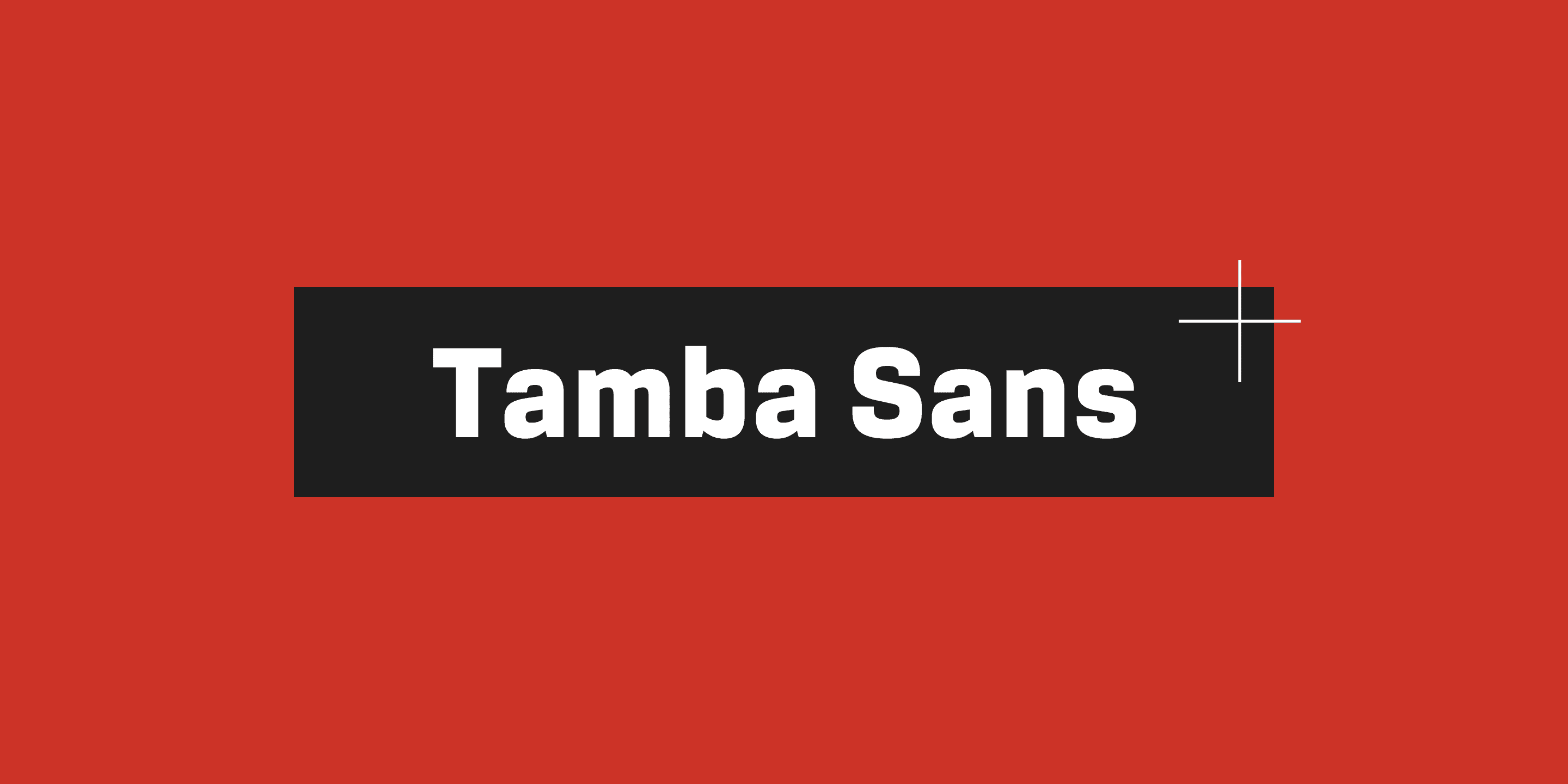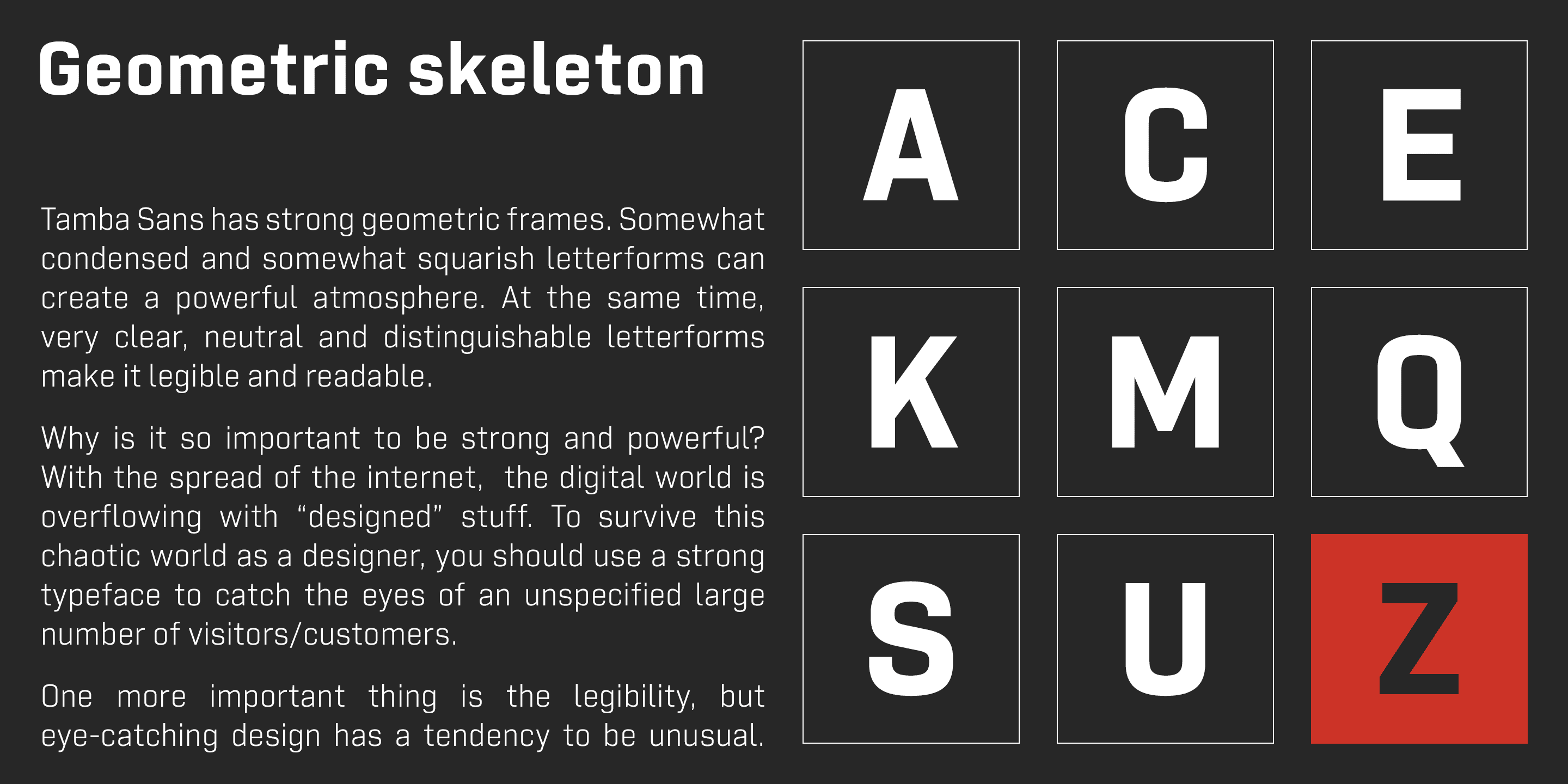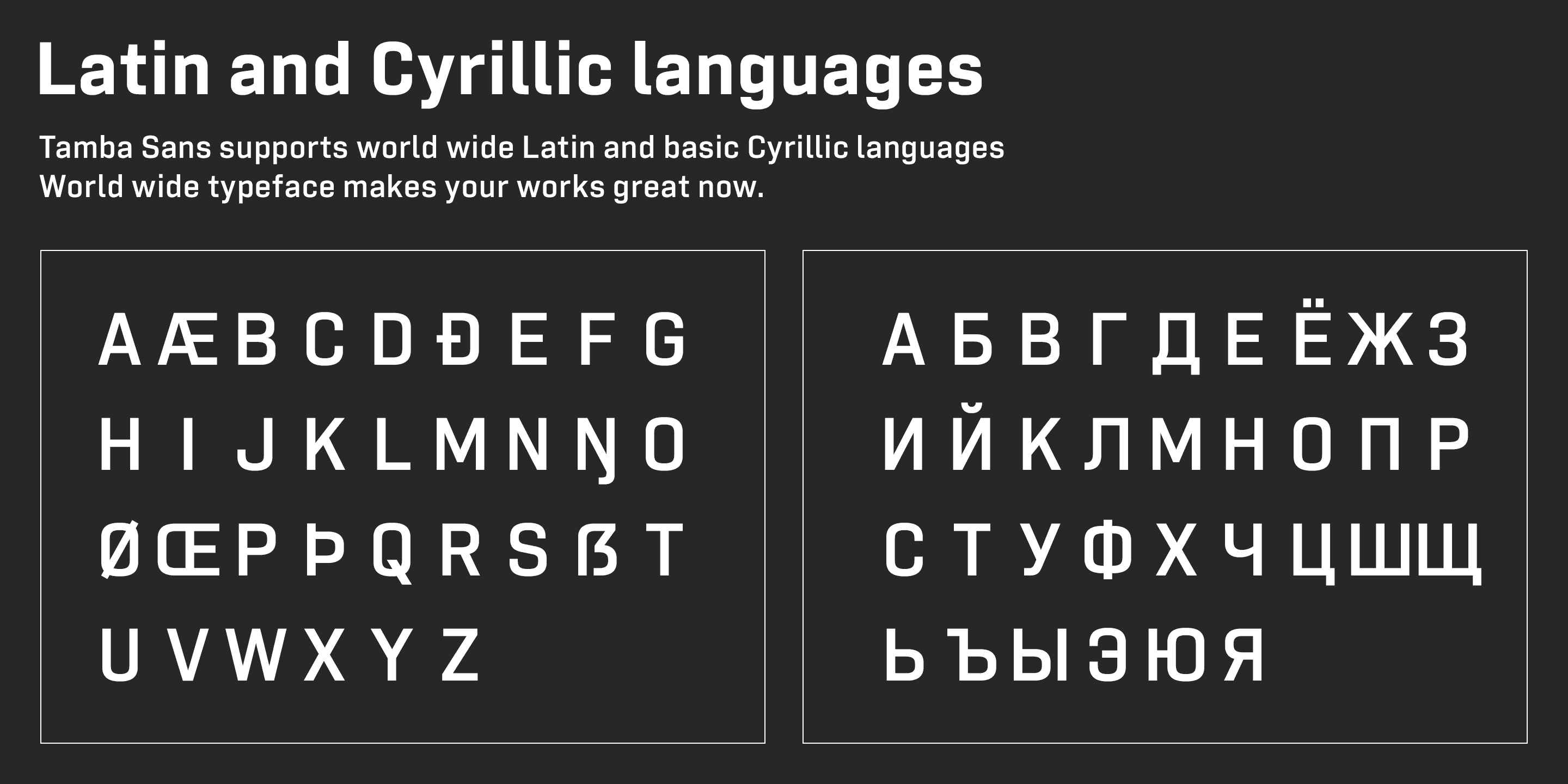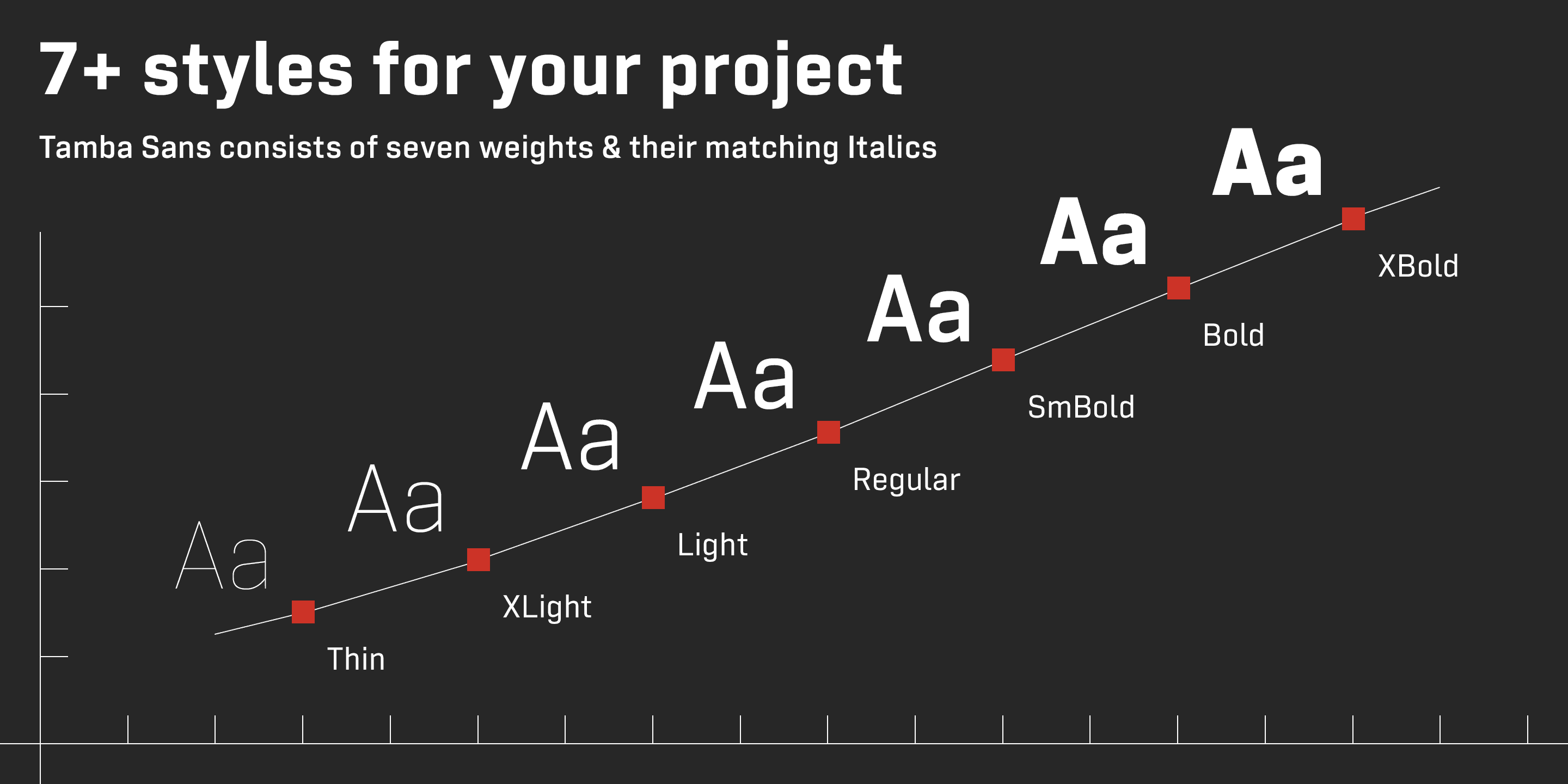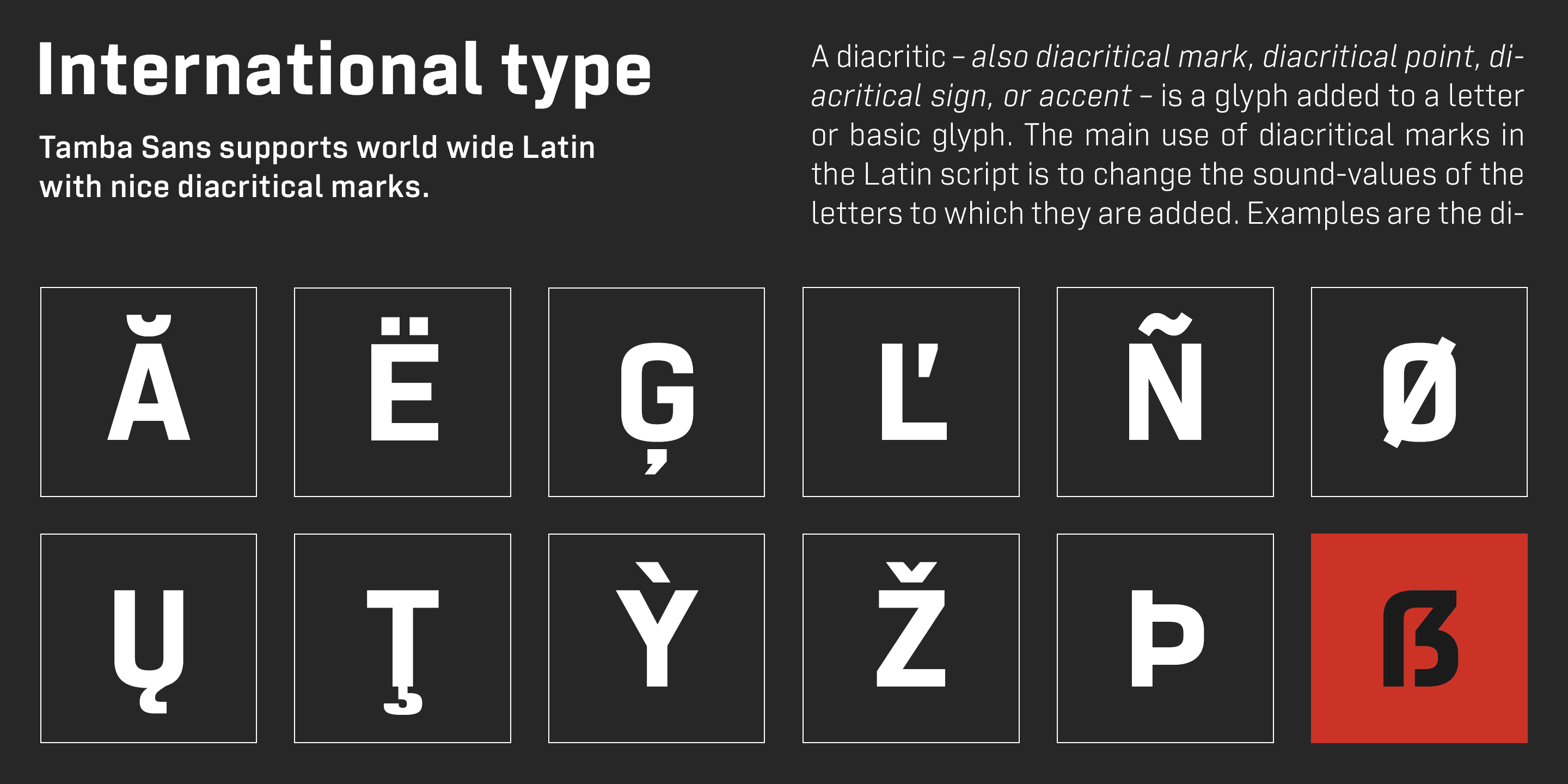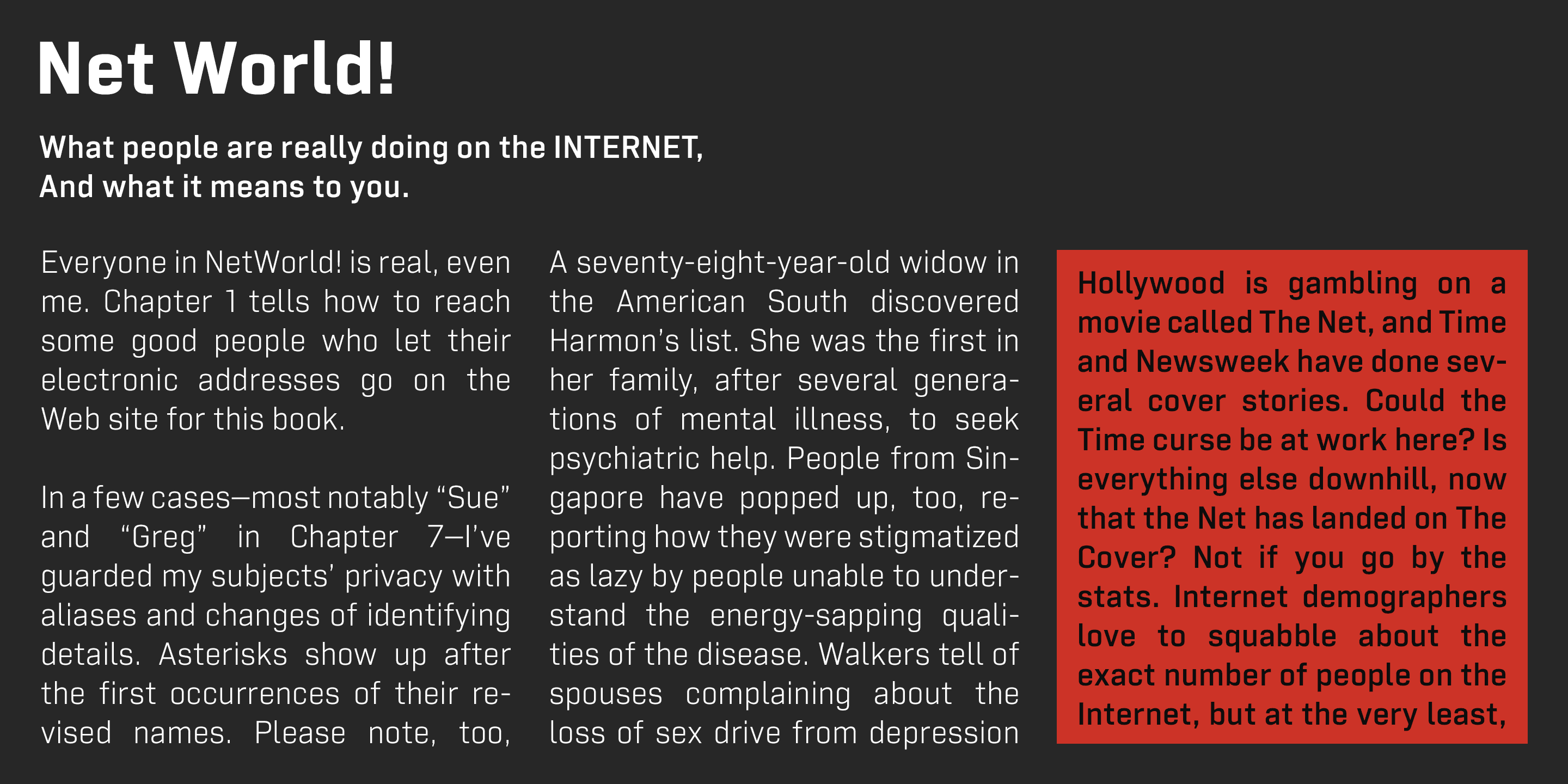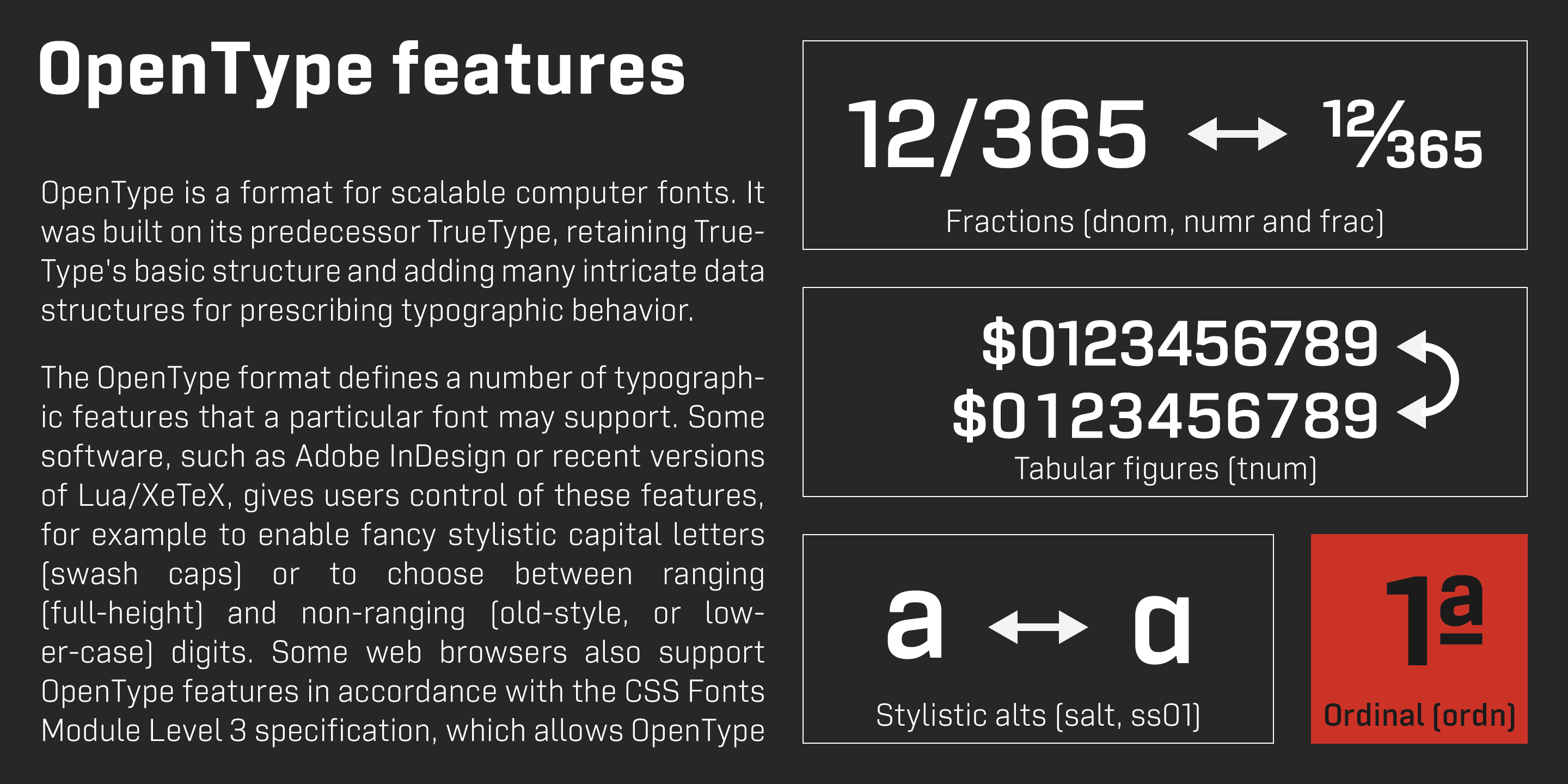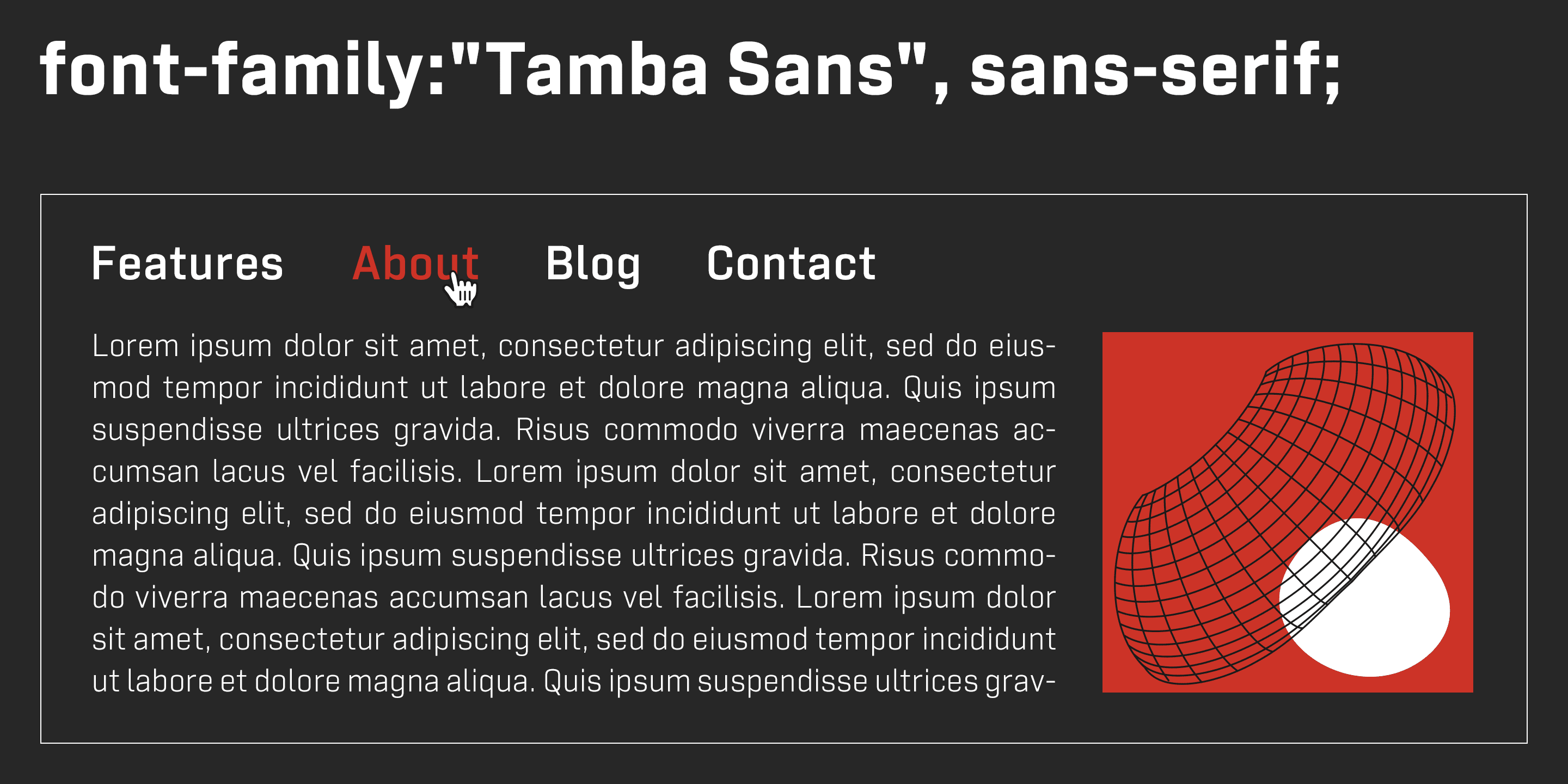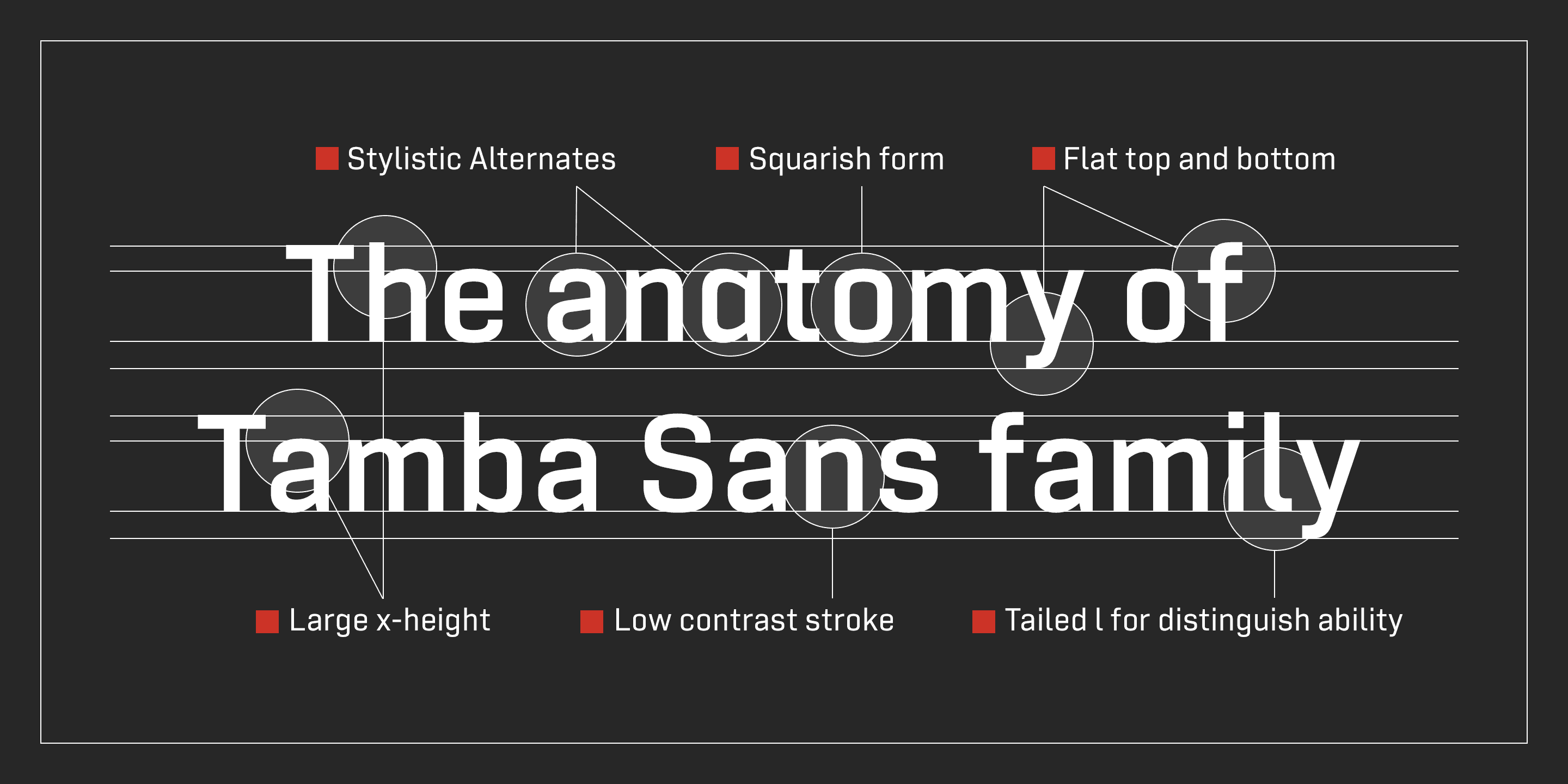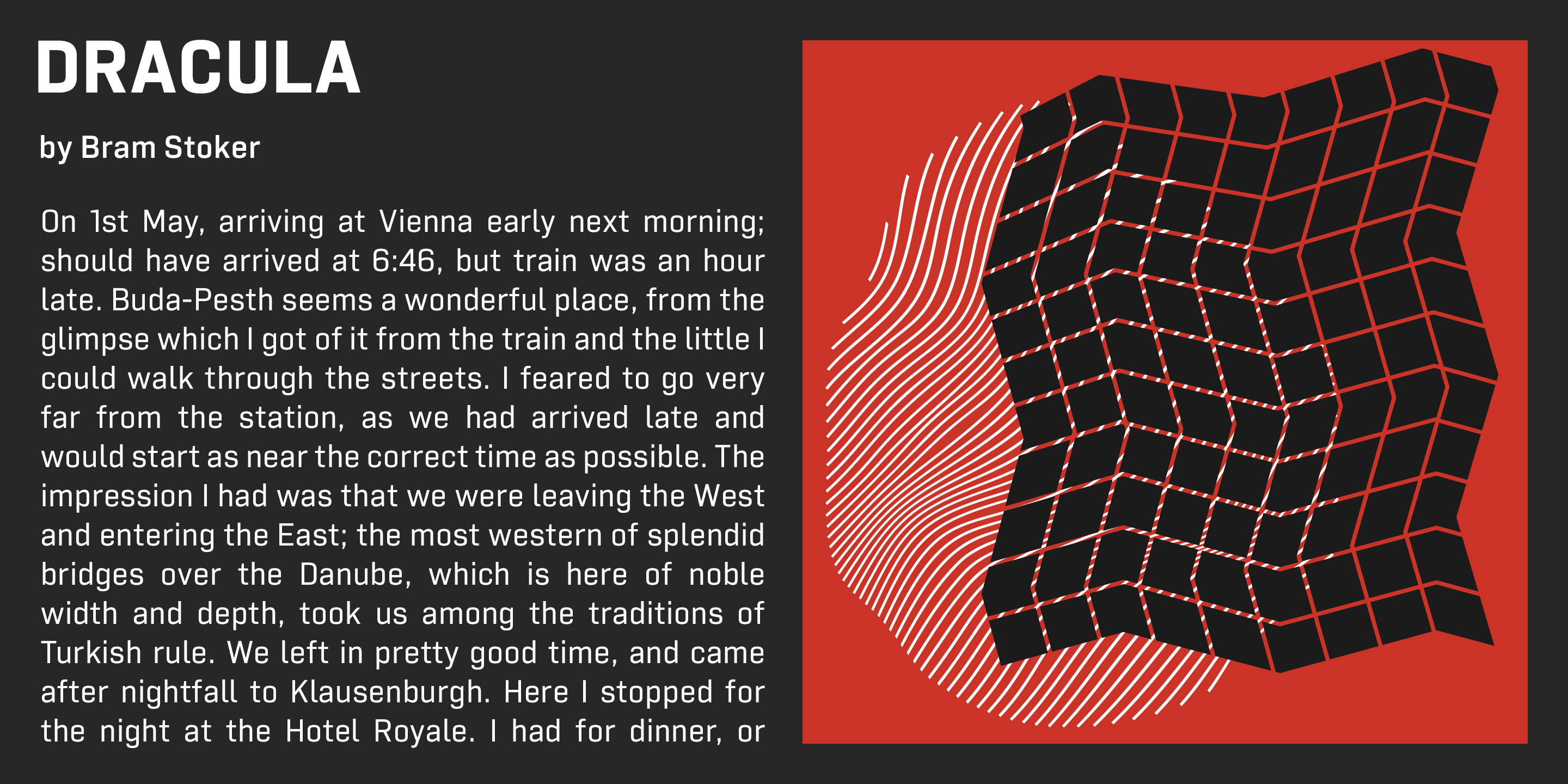
Tamba Sans has strong geometric frames. Somewhat condensed and somewhat squarish letterform can create a powerful atmosphere. At the same time, the very clear, neutral and distinguishable letterforms make it legible and readable.
With the spread of the internet, the digital world is overflowing with “designed” stuff. To survive this chaotic world as a designer, you should use a strong typeface to catch the eyes of an unspecified large number of visitors/customers. This is why it is so important to be strong and powerful.
One more important thing is the legibility, but the eye-catching design has a tendency to be unusual. Those two things conflict with each other. Tamba Sans solved this problem with an exquisite balance.
Tamba Sans consists of 7 weights and their matching Italics for a wide range of usages. Farther, Tamba Sans is supporting international Latin languages and basic Cyrillic languages including Basic Latin, Western Europe, Central and South-Eastern Europe. Also CSS covers Mac Roman, Windows1252, Adobe1 to 3. This wide range of international characters expands the capability of your works."